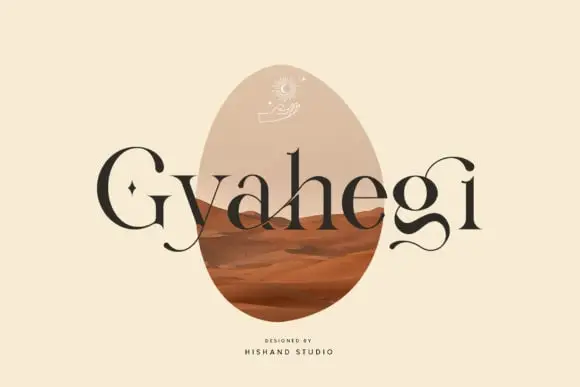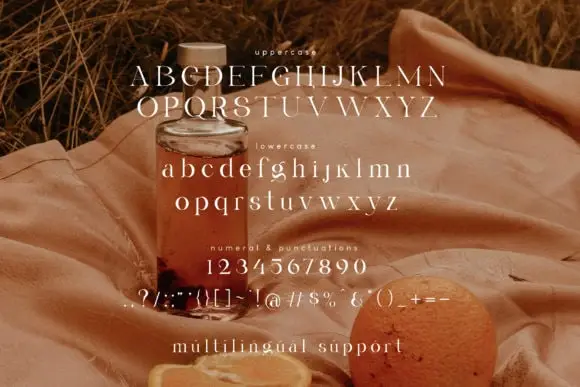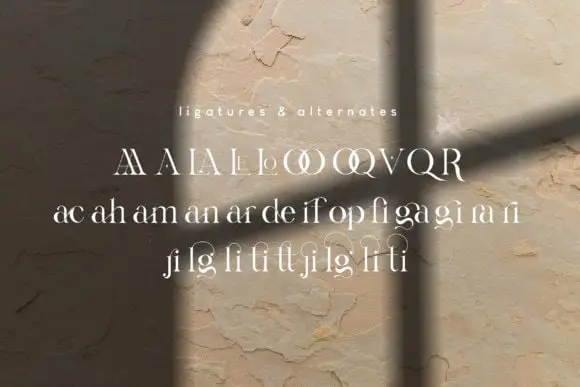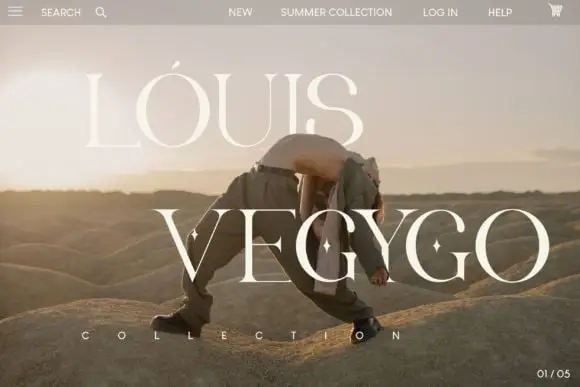
Gyahegi Serif Font (C) Hishand Studio
Introducing the Gyahegi Serif Font, a stunning typeface designed by Hishand Studio. This font features a classic serif style that adds a touch of elegance to any project. With its unique character shapes and refined details, Gyahegi is perfect for both modern and traditional designs.
• Stylish serif design
• Weight options: Regular, Bold
This font is ideal for branding, logo design, print materials, and web applications. Use it to create eye-catching headlines or elegant body text that stands out.